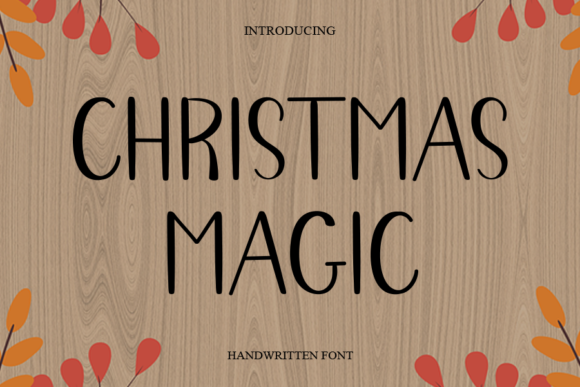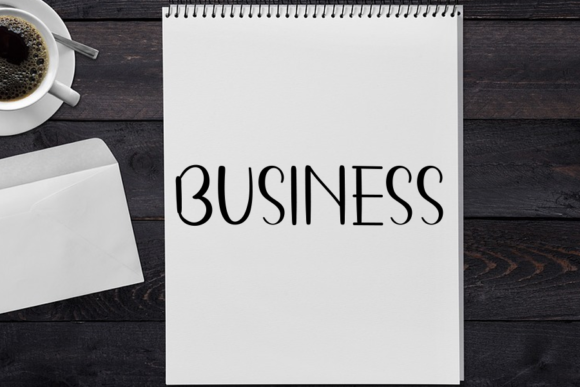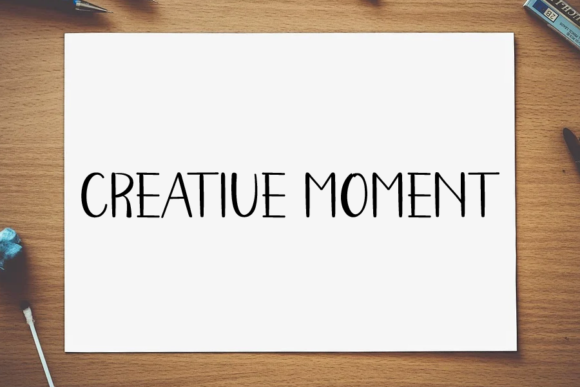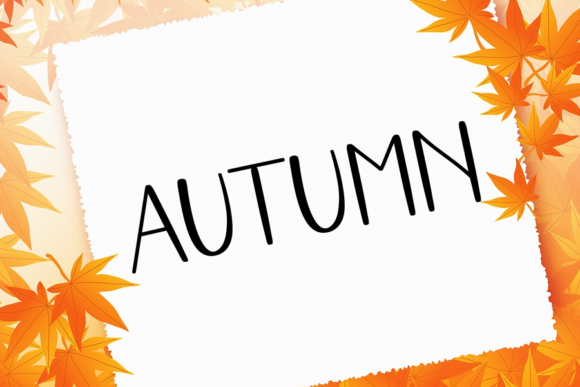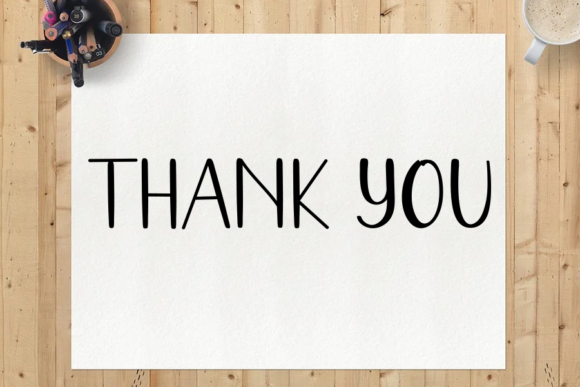
Christmas Magic Font
About Christmas Magic Font
Christmas Magic is a cute and simple lettered handwritten font that can be used for all chalkboard quotes or teaching material! Its authentic look will add a personal and realistic feel to your designs.